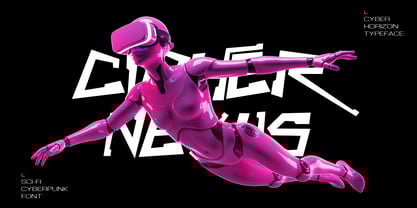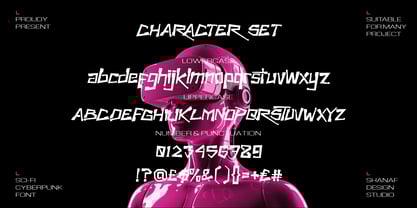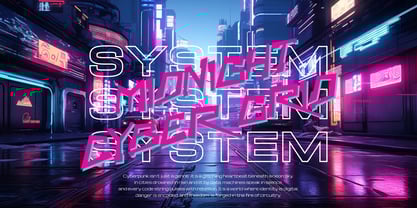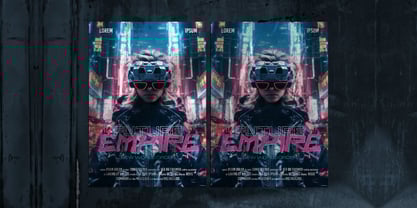
Cyber Horizon
by Shanaf
The Cyber Horizon Font Family was designed by Yesie Erma Yunita and published by Shanaf. Cyber Horizon contains 1 styles. More about this family
Cyber Horizon is a strikingly futuristic display font that electrifies your visuals with raw energy and angular precision. Inspired by the aesthetics of sci-fi cinema, dystopian futures, and cybernetic organisms, this typeface fuses aggressive edgework with sleek curves—crafting a typographic experience that feels both synthetic and rebellious. Each letterform is intentionally sliced, slanted, and extended, creating a bold motion-forward effect, perfectly engineered for posters, album covers, and tech-savvy branding. The typeface includes uppercase, lowercase, numerals, and punctuations that uphold consistency while embracing chaos in its visual rhythm.
Designed to command attention in neon-lit environments and digital frontiers, Cyber Horizon is tailor-made for modern storytellers, gaming developers, music artists, and visionary brands. Its sharp strokes and asymmetric flair evoke the tension of glitching data streams, mecha warfare, and synthetic consciousness. Whether featured in UI/UX, cinematic trailers, fashion magazines, or merchandise, Cyber Horizon projects power, personality, and purpose. This is not just a font—it’s a portal to the next digital frontier.
Designers: Yesie Erma Yunita
Foundry: Shanaf